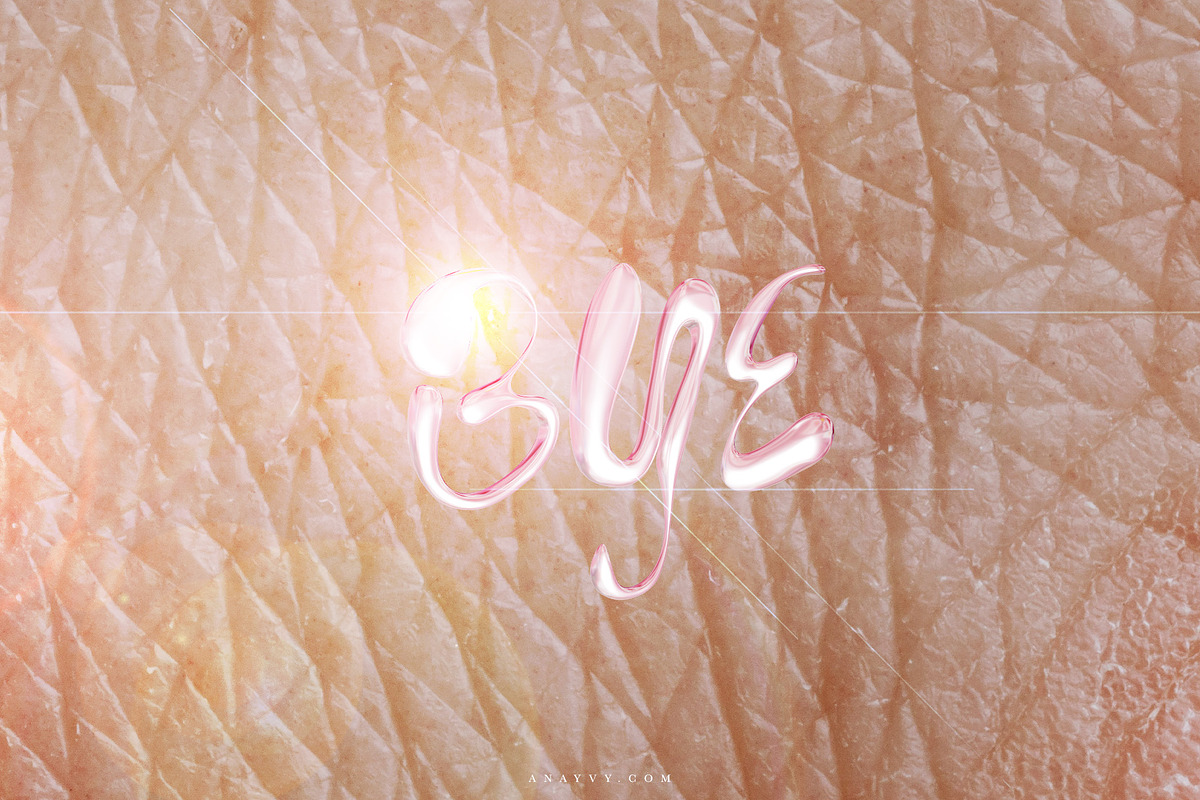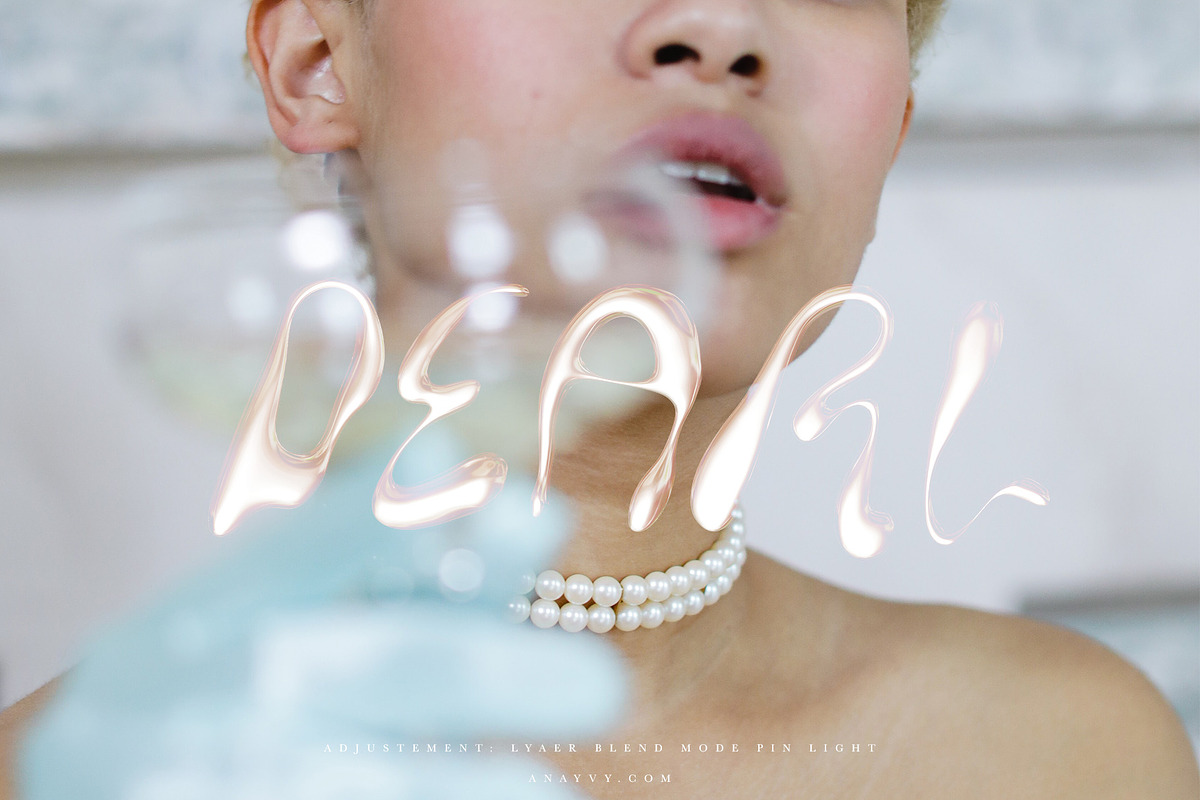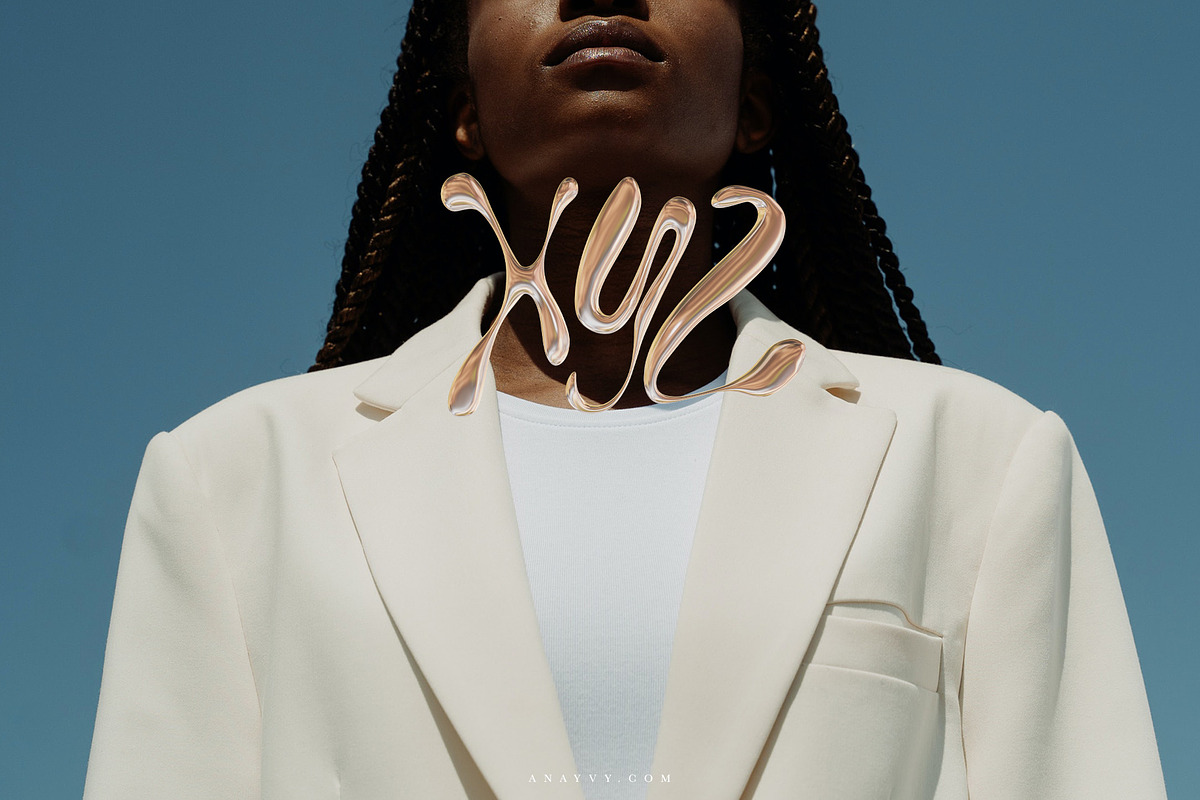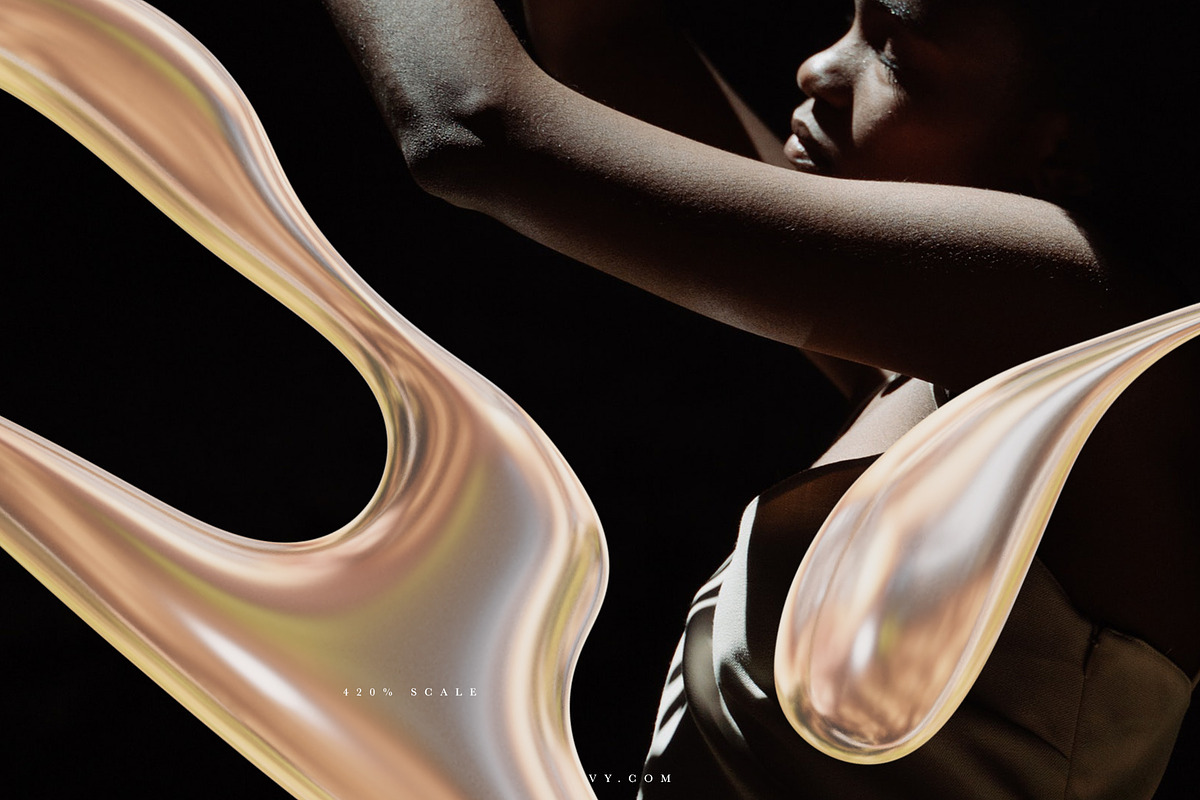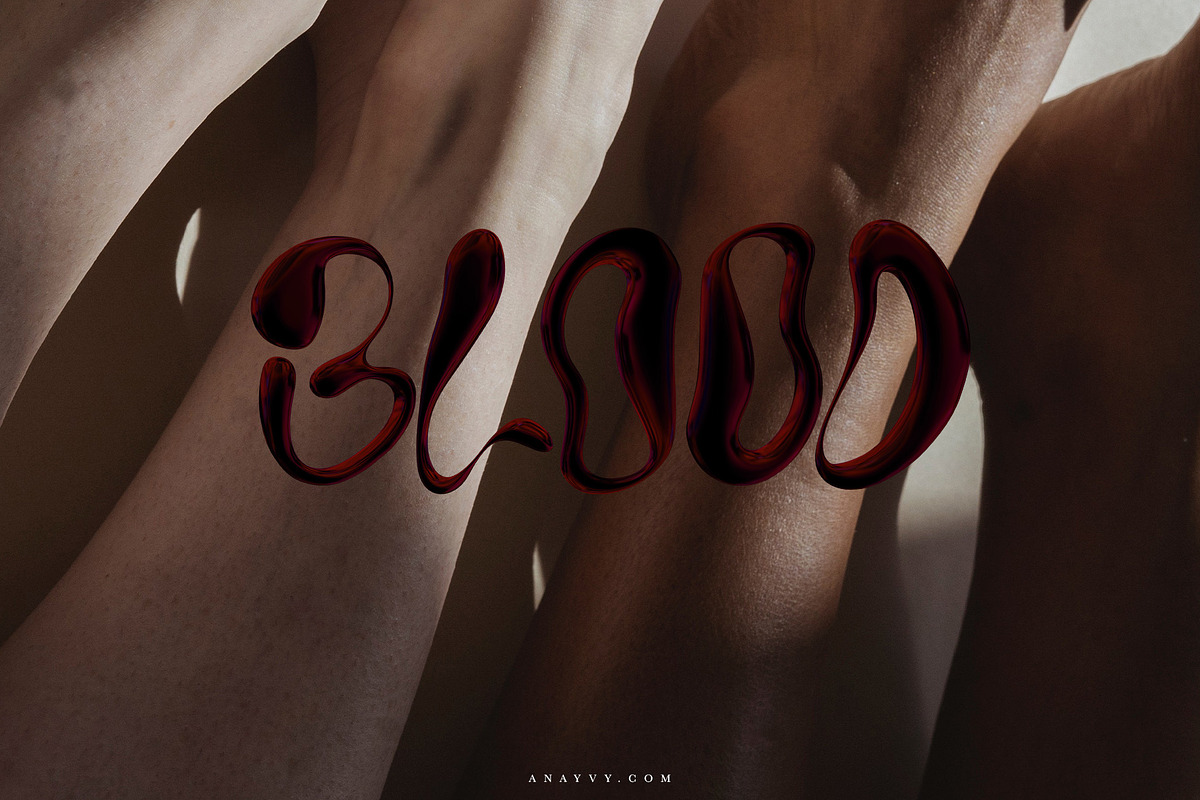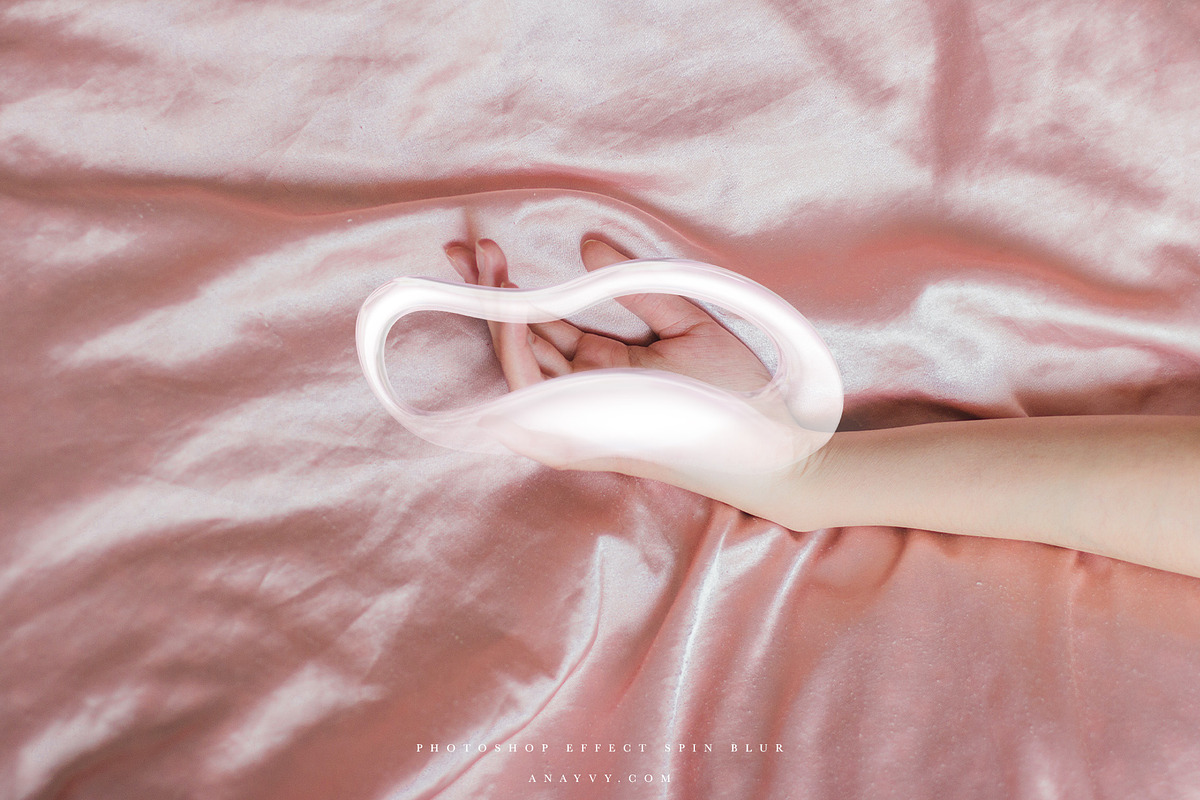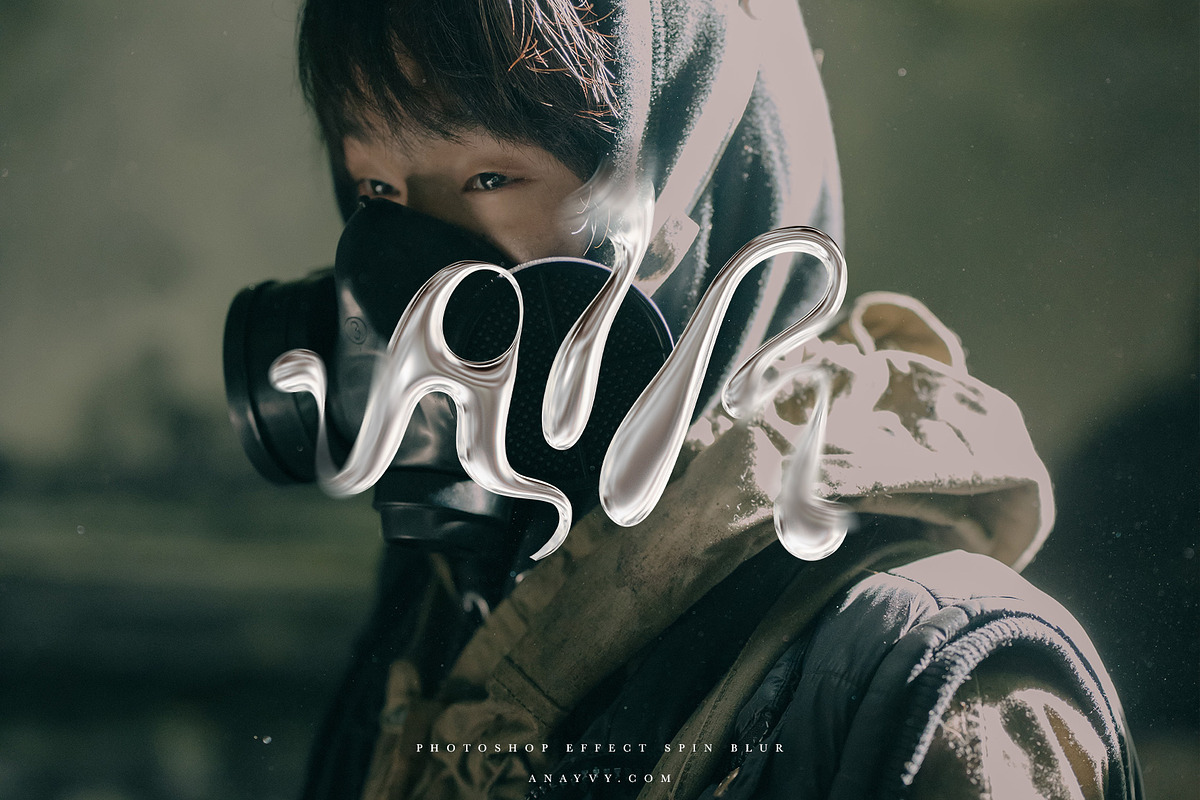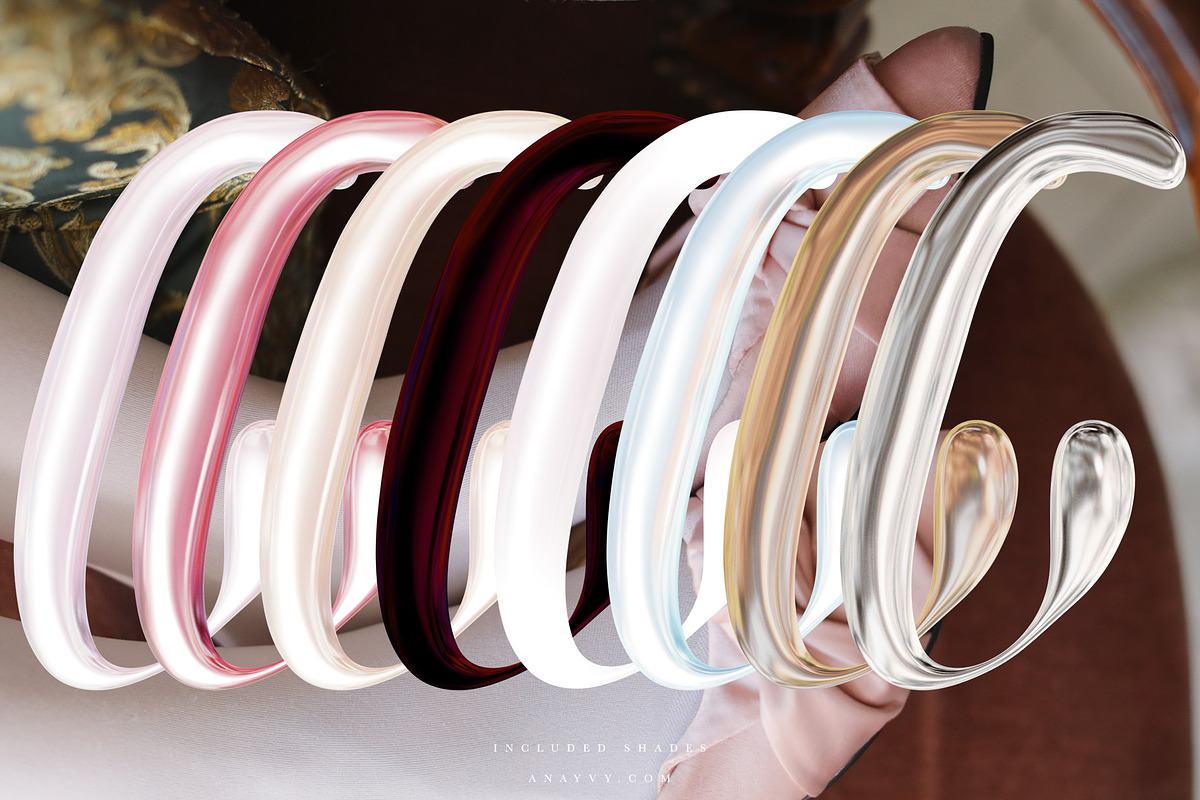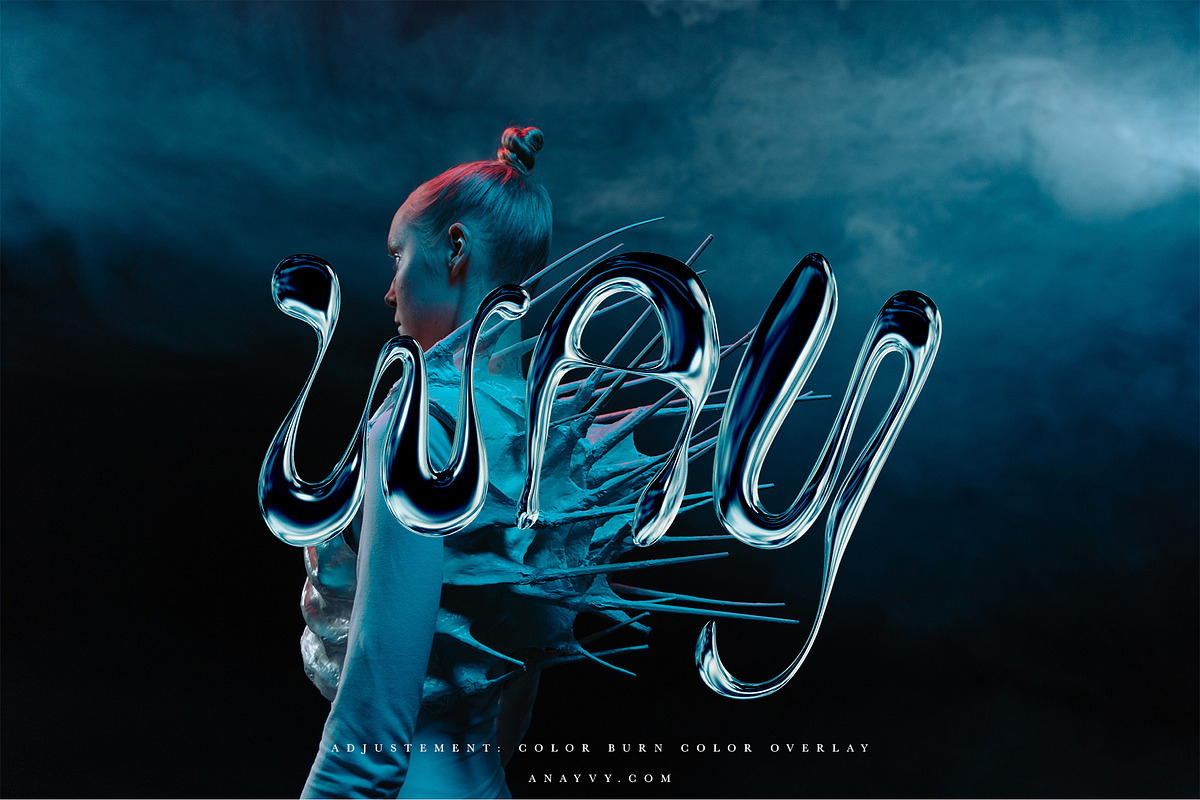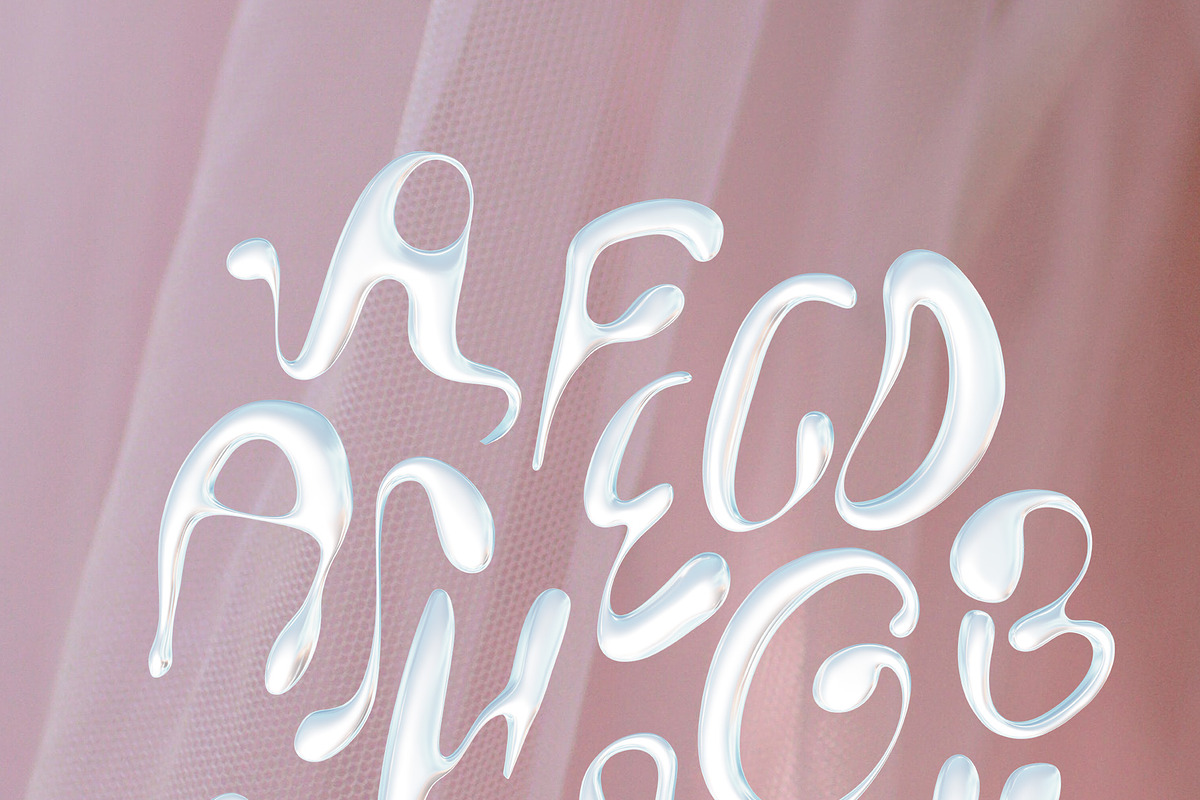
Alien Skin | liquid metal material
Alien Skin is a limited mini font set - handmade melting shapes, pearl & metallic reflections in different colour concepts. Simply a fn font to work with!
- ADDITION: plain black font, don't expect fancy kerning! I's just for a quick preview without 3D effect.
Use it as shapes, use it as a font, simply have fun!